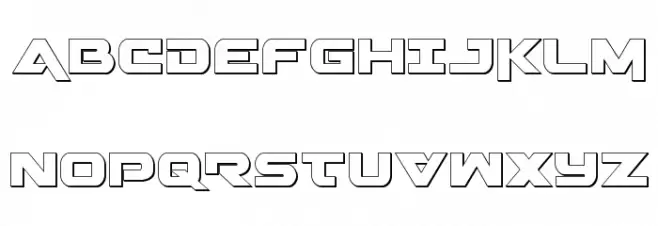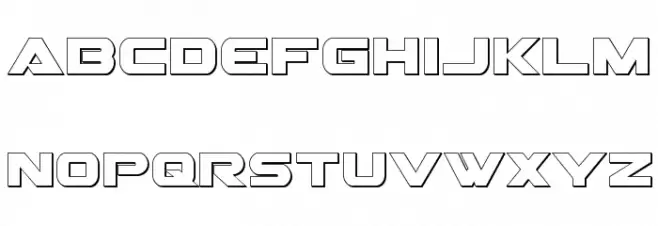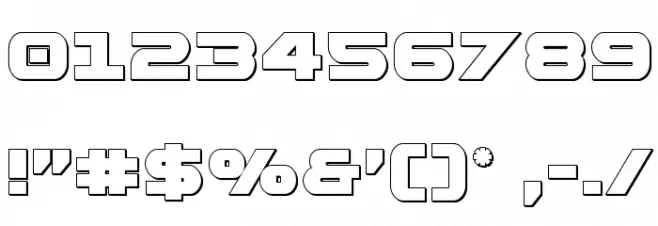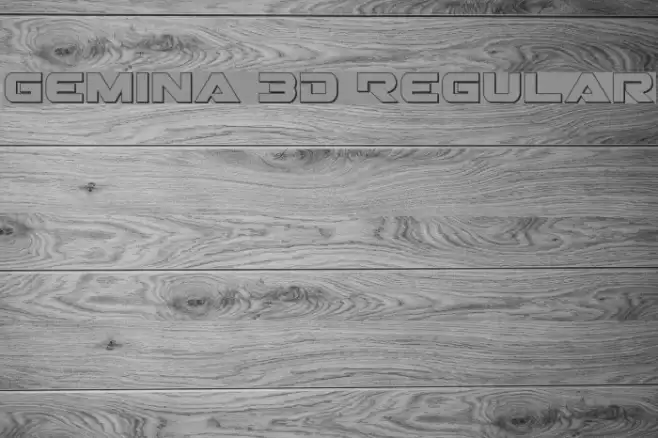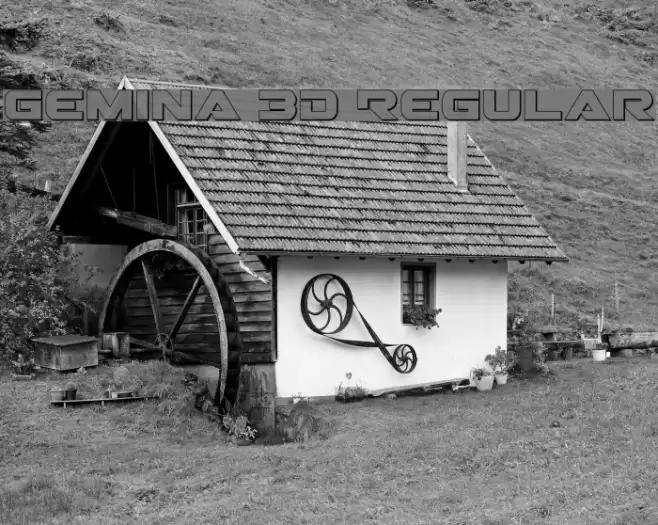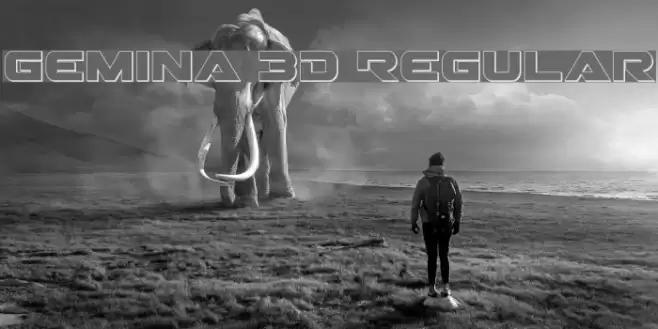
Gemina 3D Regular
This font features a bold, geometric design with a three-dimensional effect, giving each character a distinct, futuristic appearance. The letters are outlined, creating a hollow look that enhances the 3D illusion. The angular shapes and sharp edges contribute to a modern and tech-inspired aesthetic. The uppercase and lowercase letters maintain a consistent style, with uniform line thickness and precise angles. The numerals and special characters follow the same design principles, ensuring a cohesive look across all glyphs. This font is ideal for projects that require a contemporary and eye-catching typeface.
A bold, geometric font with a 3D effect and modern, tech-inspired design.
- Proposed Projects: Ideal for technology branding, futuristic posters, video game titles, and sci-fi themed designs.